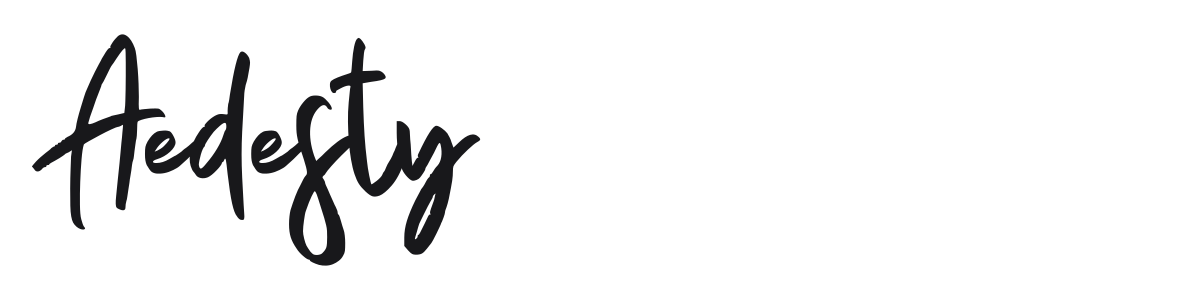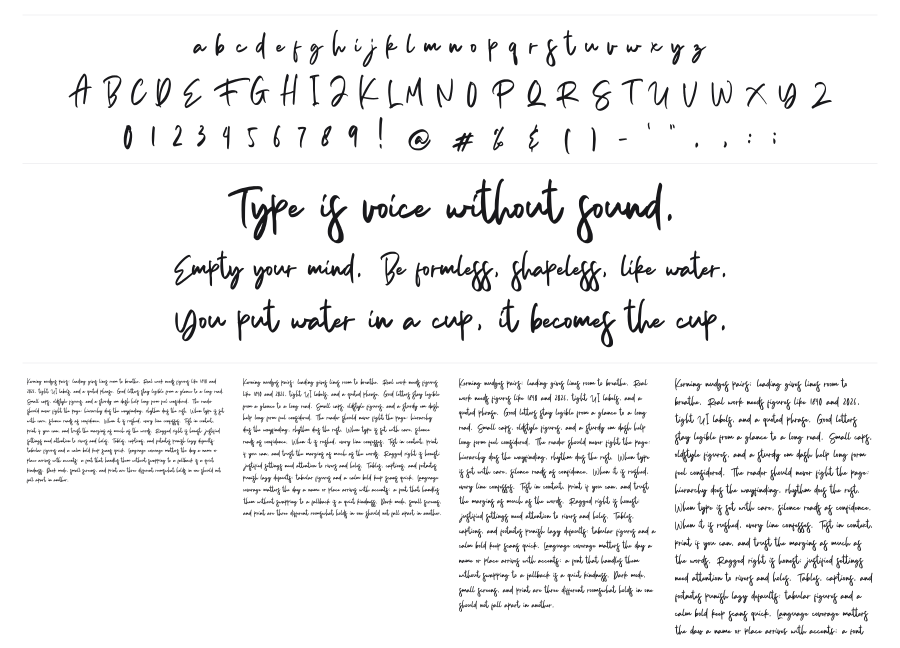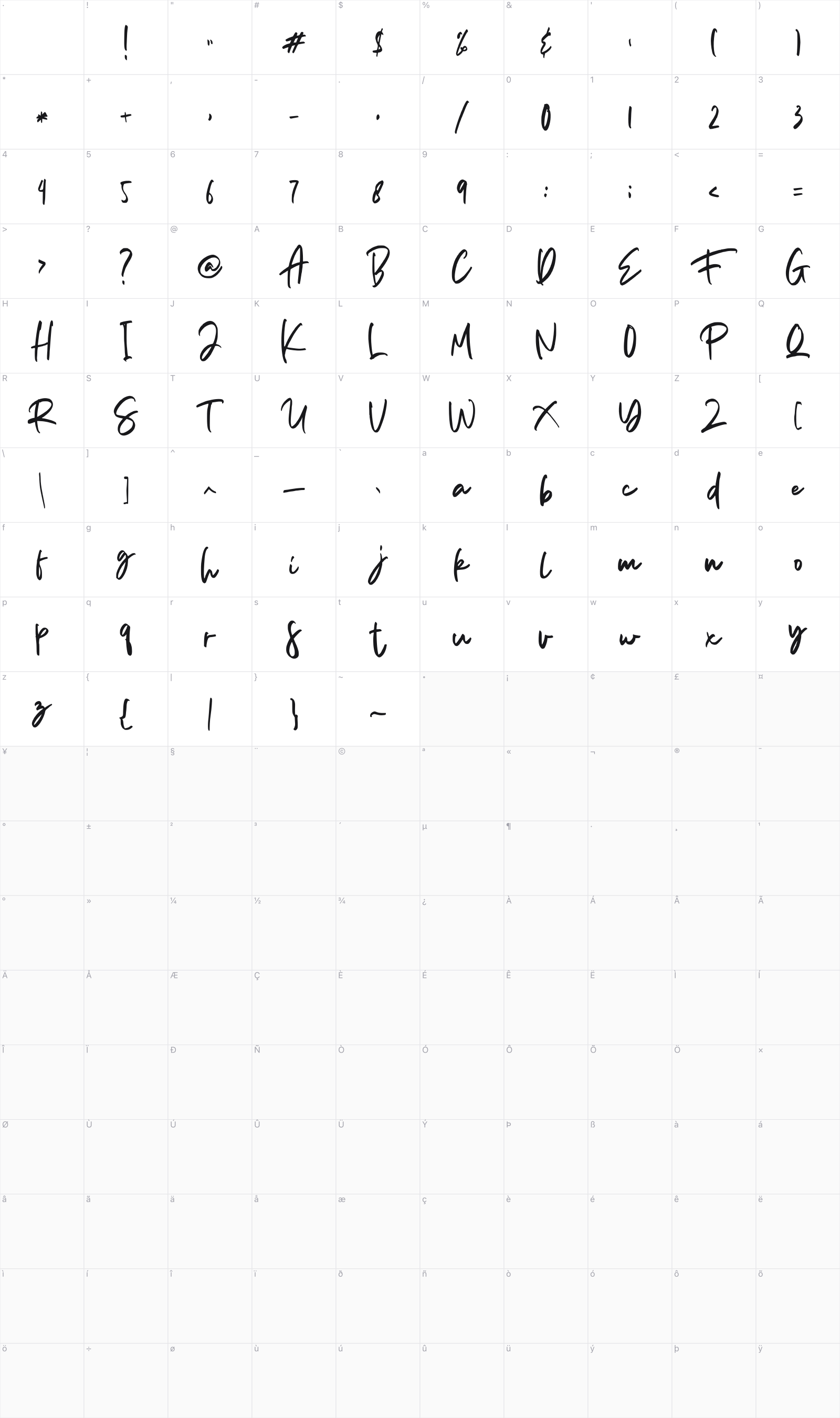
Aedesty
Aedesty is a casual hand-lettered script with a natural, flowing rhythm and confident pen-like strokes. The connected letters and generous loops give it an effortless, contemporary feel that works well on packaging, logos, and social content. It sits in that sweet spot between polished and personal.